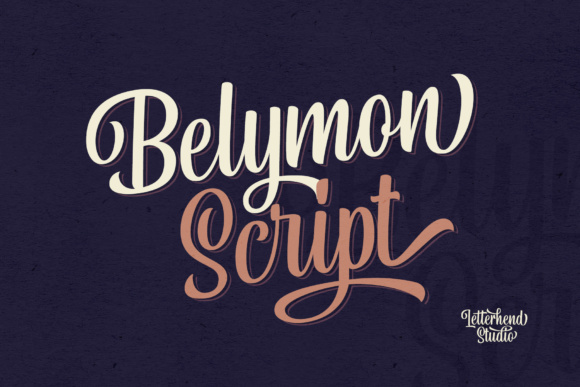
Introducing Belymon Script Font: The Ultimate Choice for Elegant and Readable Typography
In the world of typography, a good font can make all the difference in the way a message is conveyed. For those seeking a script font that exudes classic elegance and exceptional readability, look no further than the Belymon Script Font. This versatile and stylish font is perfect for a wide range of applications, from logos and apparel to invitations, branding, packaging, advertising, and more.
The Unique Characteristics of Belymon Script Font
The Belymon Script Font is a one-of-a-kind script that boasts a classic touch, making it an excellent choice for designers and businesses looking to add a touch of sophistication to their visual identity. Its unique characteristics include:
- Classic Touch: The Belymon Script Font features a timeless design that echoes the elegance of traditional script fonts, making it perfect for those seeking a refined and luxurious look.
- Good Readability: Unlike many script fonts that sacrifice readability for style, the Belymon Script Font strikes the perfect balance between aesthetics and legibility, ensuring that your message is conveyed clearly and effectively.
- Versatility: Whether you’re designing a logo, creating apparel, or crafting invitations, the Belymon Script Font adapts seamlessly to various applications, making it a valuable addition to any designer’s toolkit.
Perfect for a Wide Range of Applications
The Belymon Script Font’s versatility makes it an excellent choice for various design projects. Here are some of the many applications where this font shines:
- Logos: Create a lasting impression with a logo that features the elegant and sophisticated Belymon Script Font, perfect for businesses, brands, and entrepreneurs seeking to establish a strong visual identity.
- Apparel: Add a touch of class to your clothing and accessories with the Belymon Script Font, ideal for fashion brands, designers, and retailers looking to create stylish and eye-catching apparel.
- Invitations: Make your special occasions unforgettable with beautifully designed invitations featuring the Belymon Script Font, perfect for weddings, parties, and other celebrations.
- Branding: Establish a consistent visual identity across your brand’s marketing materials with the Belymon Script Font, suitable for businesses, organizations, and individuals seeking to create a cohesive and recognizable brand image.
- Packaging: Stand out on store shelves with packaging designs that feature the Belymon Script Font, ideal for product designers, manufacturers, and retailers looking to create eye-catching and premium packaging.
- Advertising: Create compelling ad campaigns with the Belymon Script Font, perfect for marketers, advertisers, and businesses seeking to capture their audience’s attention and convey their message effectively.
Why Choose Belymon Script Font?
With so many script fonts available, why should you choose the Belymon Script Font? Here are some compelling reasons:
- Unique Design: The Belymon Script Font boasts a distinctive design that sets it apart from other script fonts, ensuring that your designs stand out from the crowd.
- Exceptional Readability: The Belymon Script Font’s careful attention to detail ensures that it remains highly readable, even at smaller font sizes, making it perfect for a wide range of applications.
- High-Quality: The Belymon Script Font is a high-quality font that is designed to deliver exceptional results, ensuring that your designs look professional and polished.
Tips for Using Belymon Script Font Effectively
To get the most out of the Belymon Script Font, here are some tips for using it effectively:
- Pair it with Other Fonts: Combine the Belymon Script Font with other fonts to create visually appealing and harmonious typography.
- Experiment with Sizes: Don’t be afraid to experiment with different font sizes to create visual interest and hierarchy in your designs.
- Pay Attention to Spacing: Ensure that you leave sufficient spacing between lines and words to maintain readability and prevent the text from becoming cluttered.
- Use it Consistently: Use the Belymon Script Font consistently across your designs to establish a strong visual identity and create a cohesive look.
In conclusion, the Belymon Script Font is an exceptional choice for designers and businesses seeking a classic, elegant, and highly readable script font. Its versatility, unique design, and exceptional readability make it perfect for a wide range of applications, from logos and apparel to invitations, branding, packaging, advertising, and more. By incorporating the Belymon Script Font into your design projects, you’ll be able to create visually stunning and effective designs that convey your message with style and sophistication.